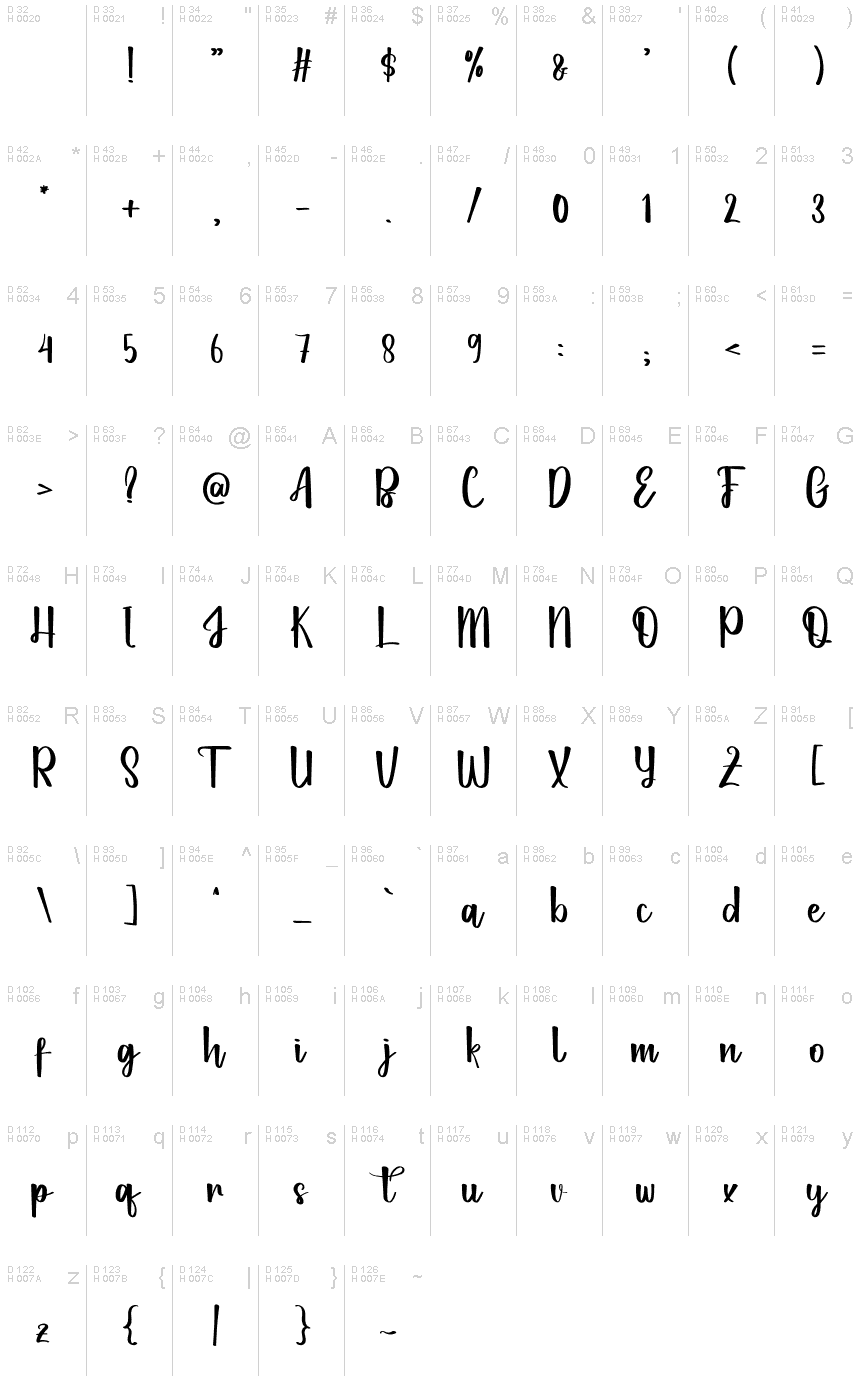
Amora
Amora is a bold, narrow handwritten font designed by Inermedia Studio. Its unique style makes it perfect for creating eye-catching logos, captivating flyers and posters, and stylish social media graphics.